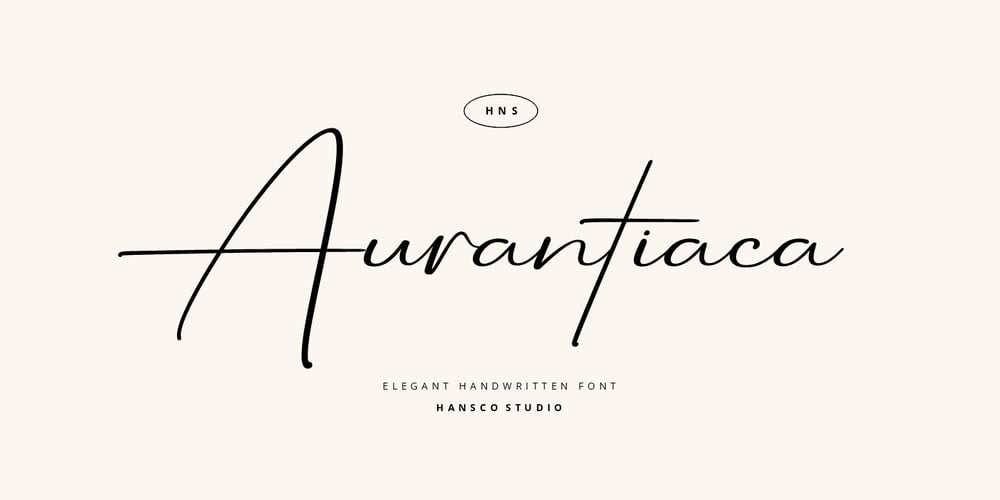
Aurantiaca Font Family was designed by Burhan Afif and published by HansCo. Aurantiaca contains 1 styles and family package options. Aurantiaca Signature is a modern, casually and feminine handwriting font. Some projects that are suitable for this font include quotes, menus, taglines, flyers, posters, invitations, greeting cards, posters, business cards, clothing, letters, stationery and many others. Comes with a full uppercase, lowercase, numbers, punctuation, ligature character and with extensive language support, it’s going to be a very usable addition to your project.Features : Uppercase & Lowercase Number Punctuation Multilingual Supports Ligature Enjoy!